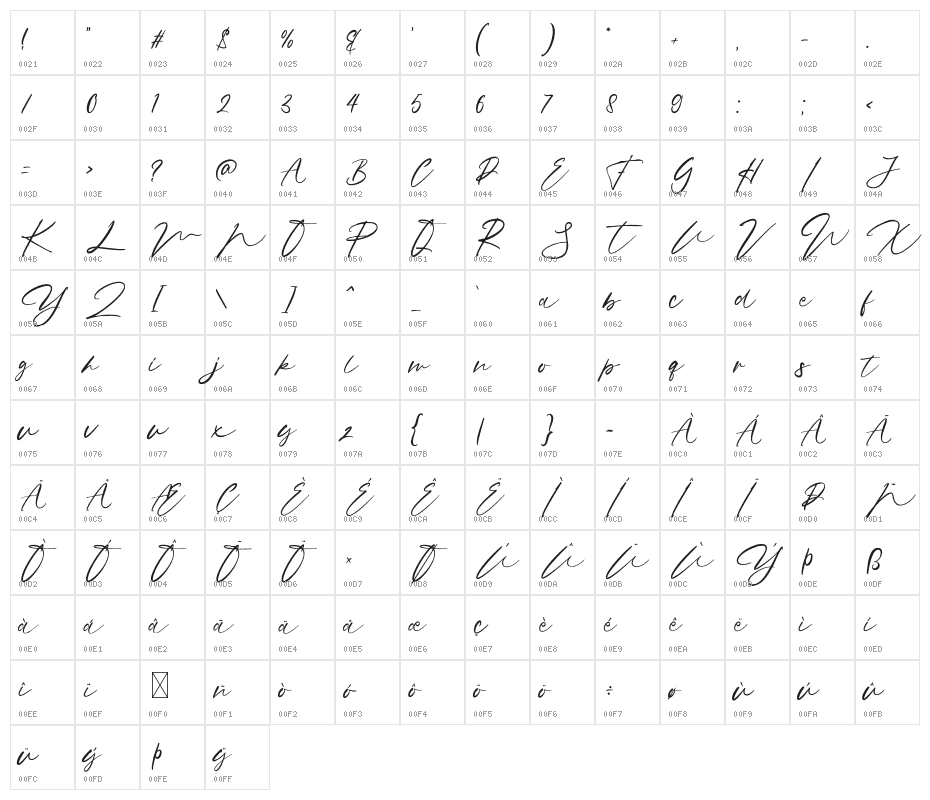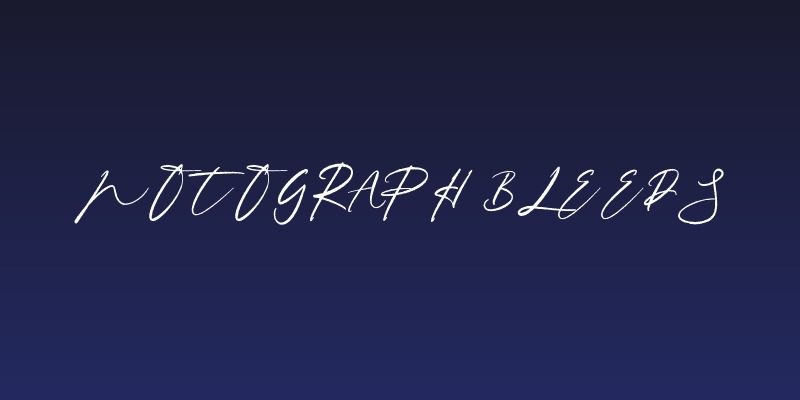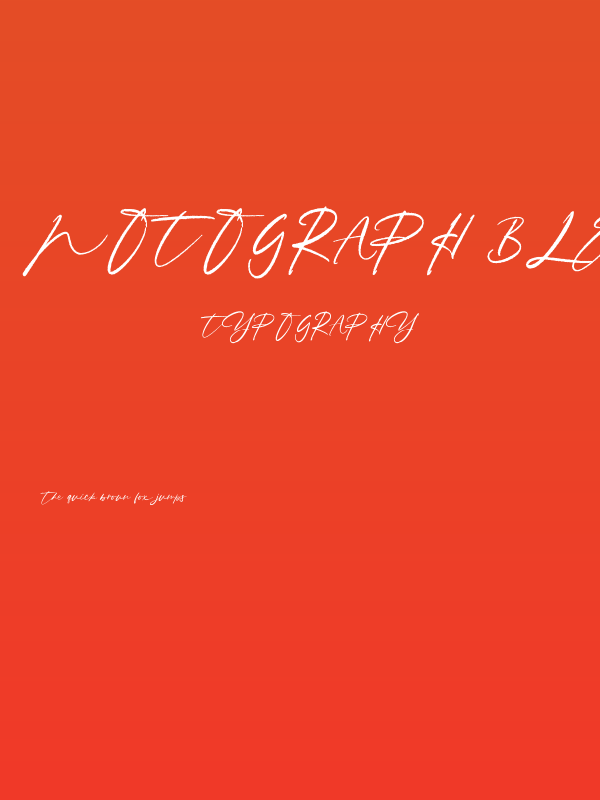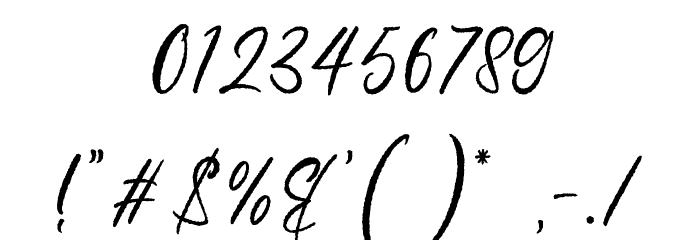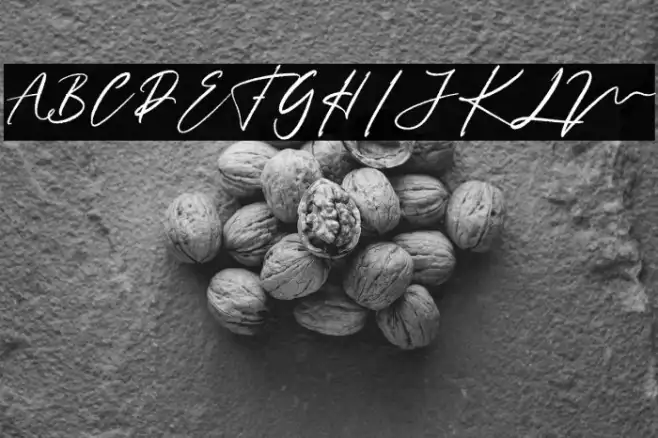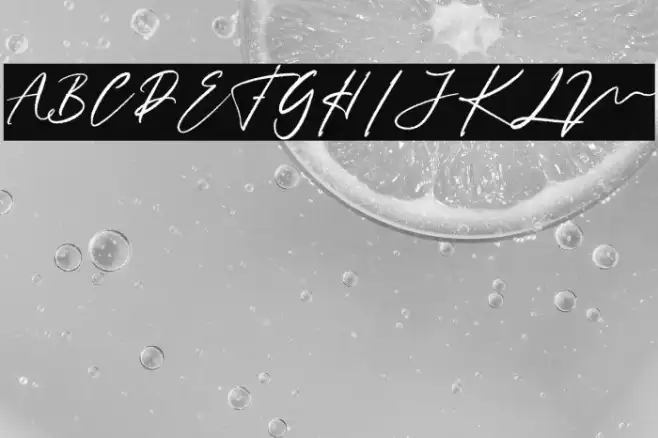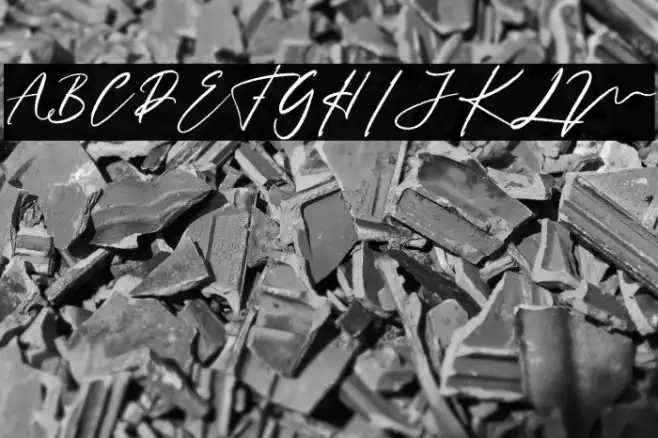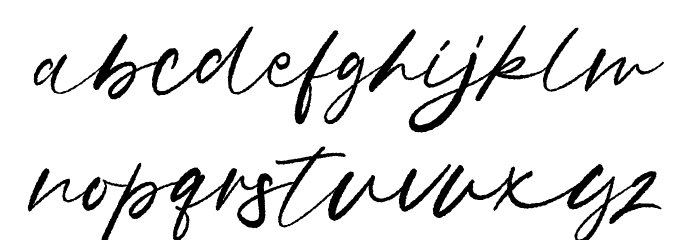
Notograph Bleeds Font
Notograph Bleeds Description
This font features a fluid, cursive style that mimics natural handwriting with a touch of elegance. The letters are connected with smooth, flowing strokes, giving it a dynamic and lively appearance. The uppercase letters are slightly more elaborate, with some decorative flourishes, while the lowercase letters maintain a consistent rhythm and balance. The numbers and special characters complement the alphabet with similar fluidity and style. This font is perfect for adding a personal, handwritten touch to any project.